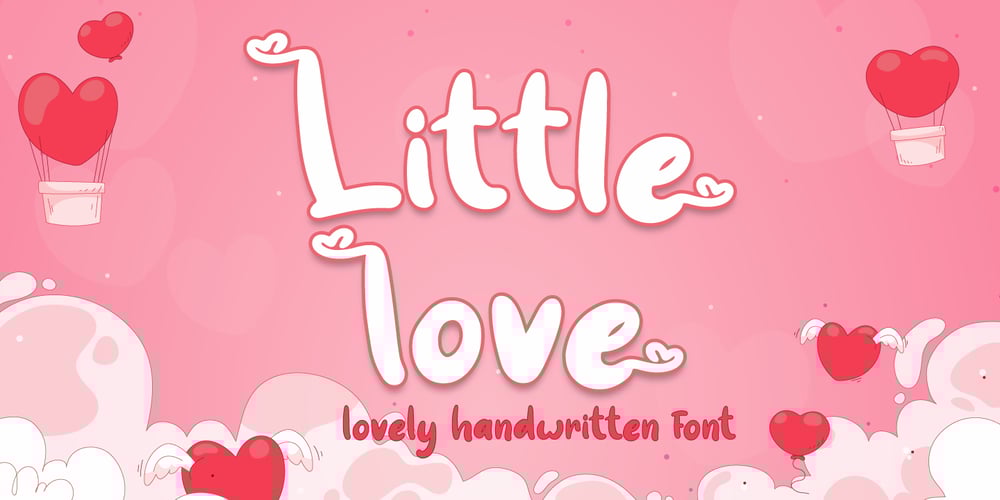
Little Love Font Family was designed by Fadli Ramadhan Iskandar and published by Attype Studio. Little Love contains 1 styles and family package options. Little love is lovely display font, including stylistic alternates that perfect for any combination for your design. Little love perfectly match for design with valentine theme, any product like book cover, t-shirt, branding, promotion, social media post, quotes, wedding, photography and more. What’s included:- Beginning & Ending Swash- Multilingual Support (Afrikaans, Albanian, Catalan, Danish, Dutch, English, Estonian, Finnish, French, German, Icelandic, Italian, Norwegian, Portugese, Spanisch, Swedish, Zulu)—Hope you enjoy with our font!Attype Studio